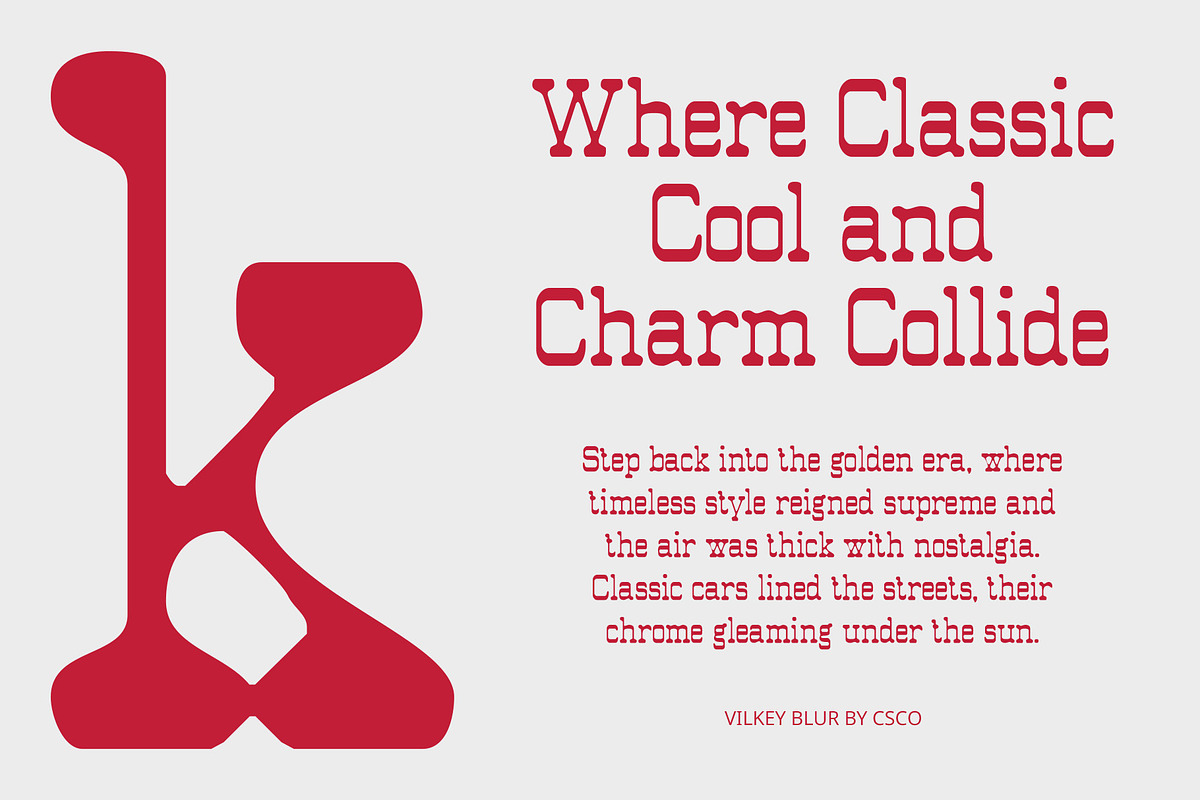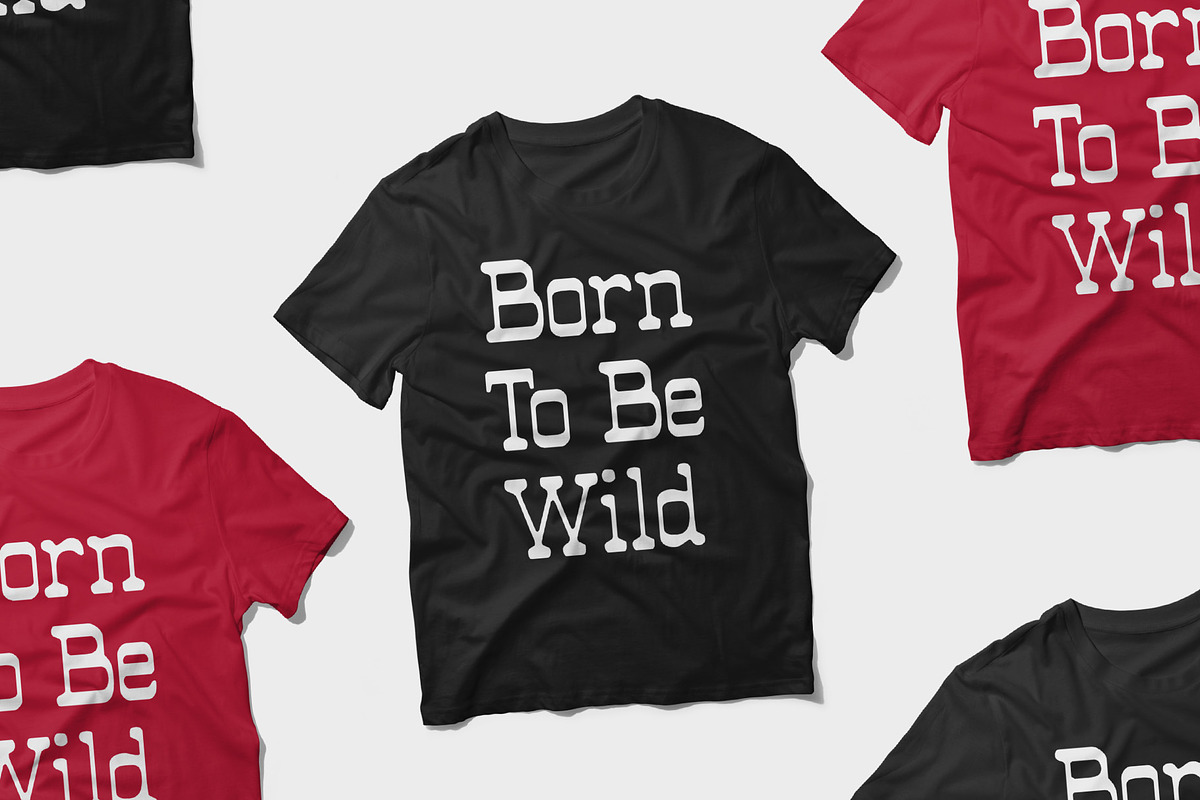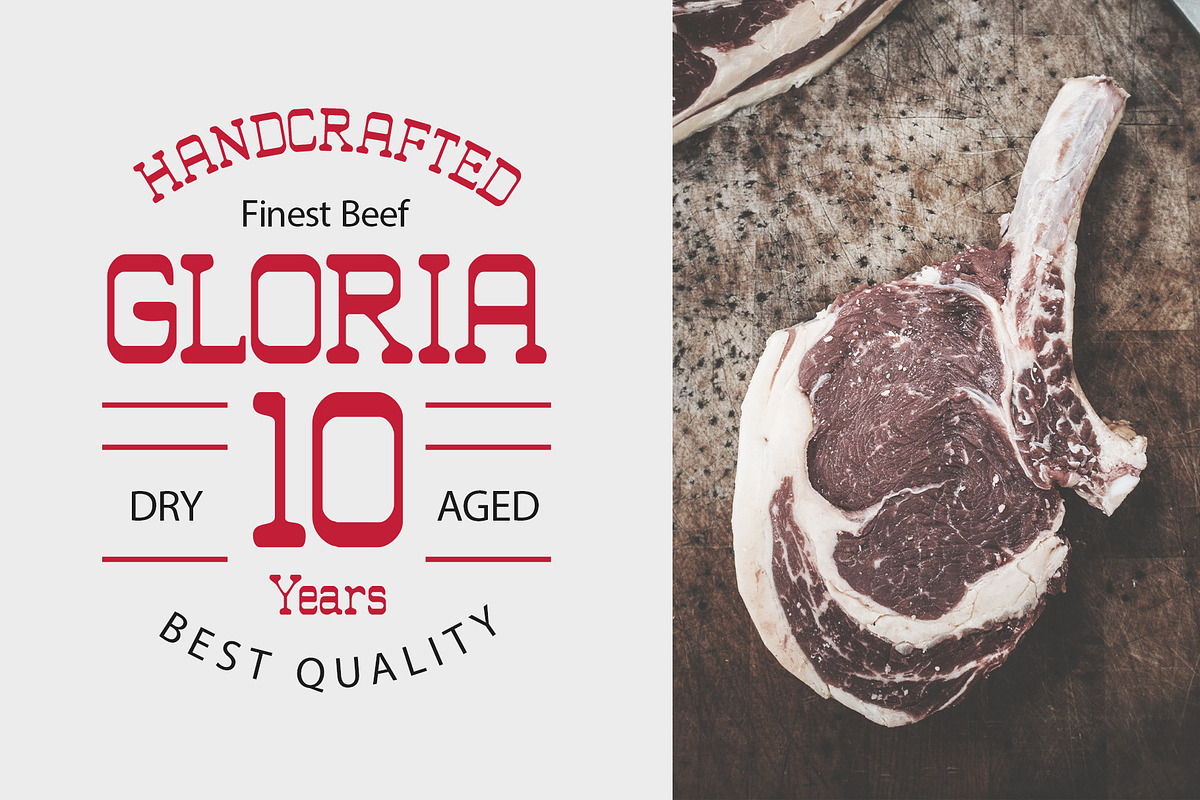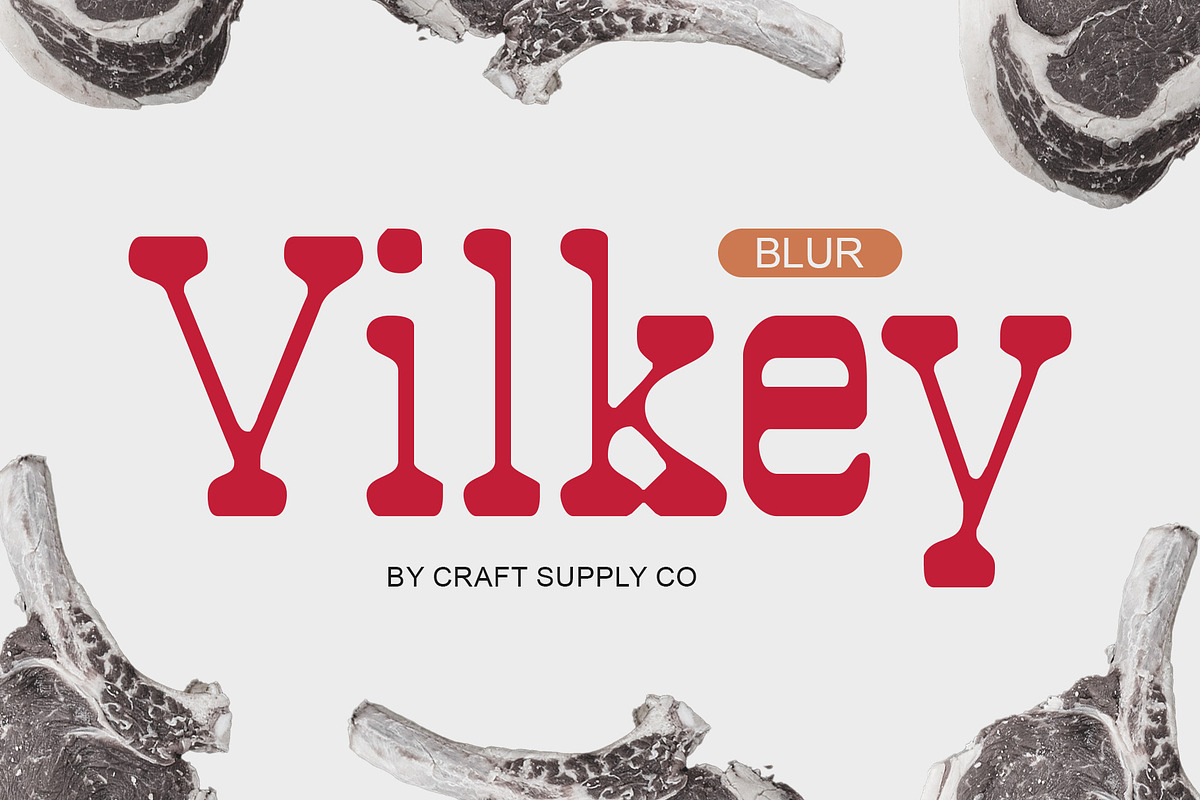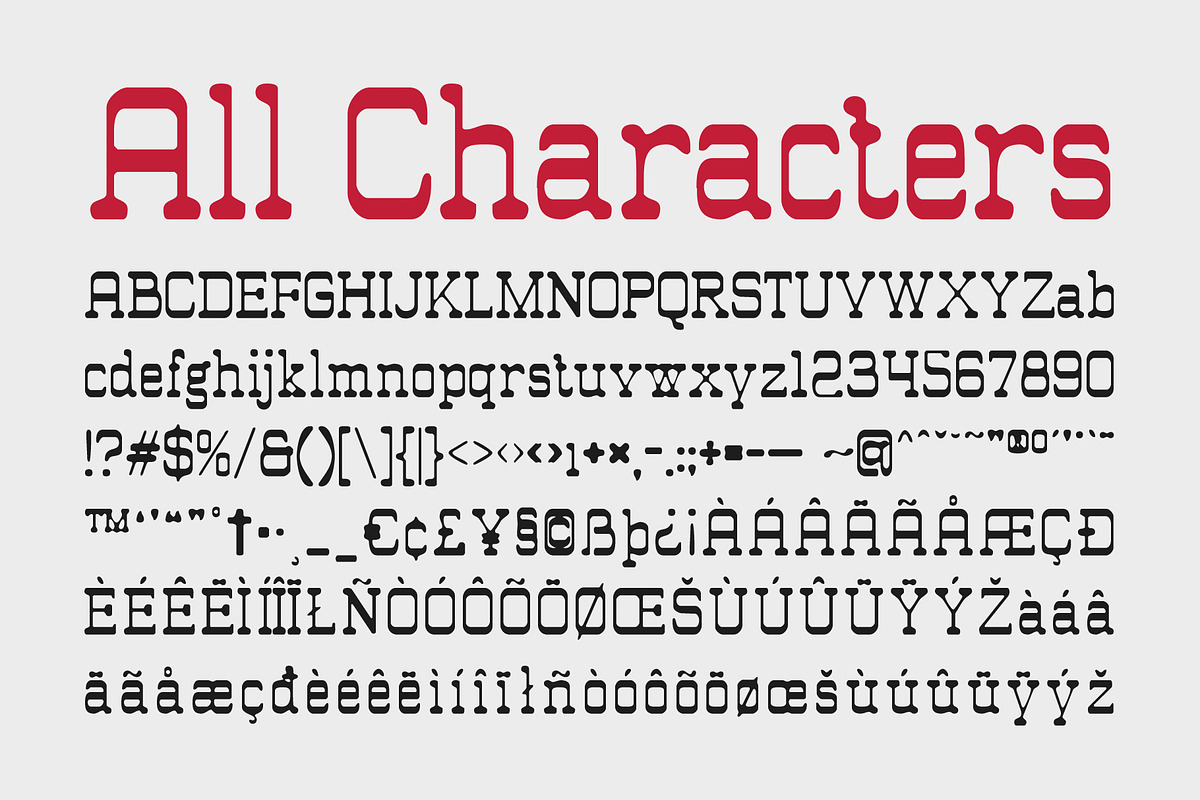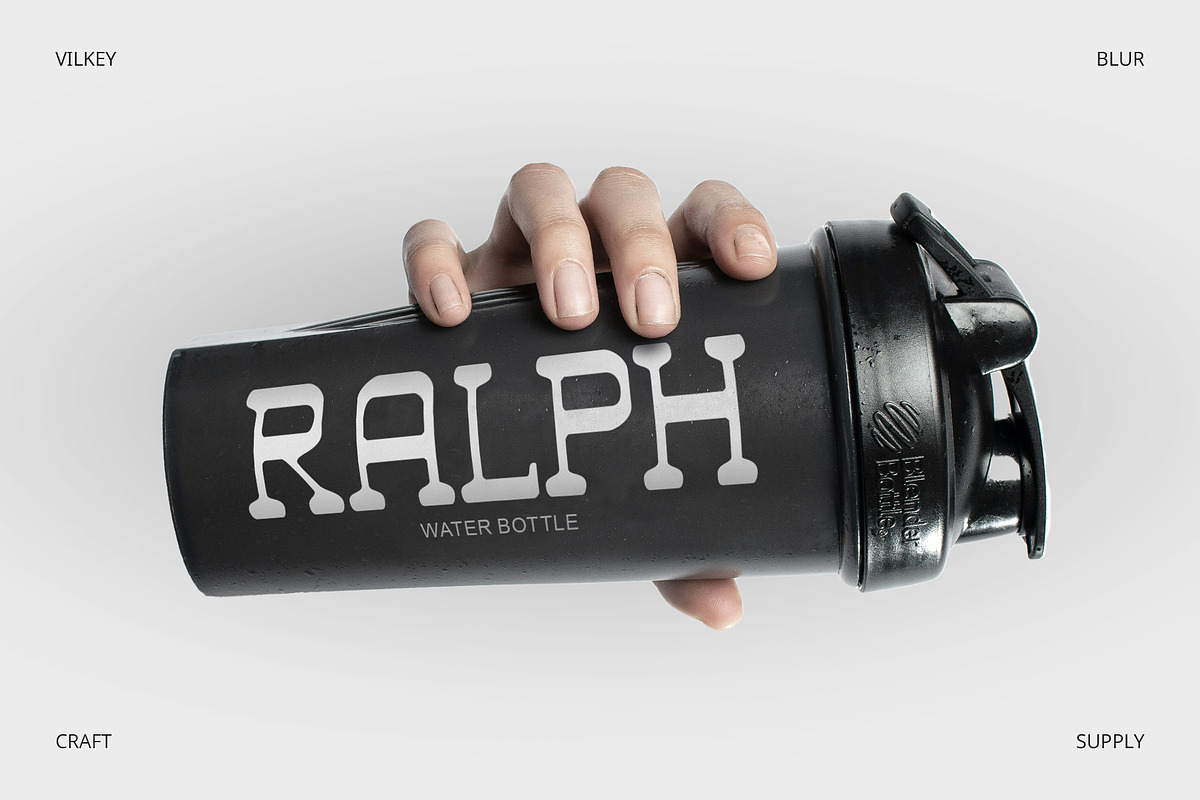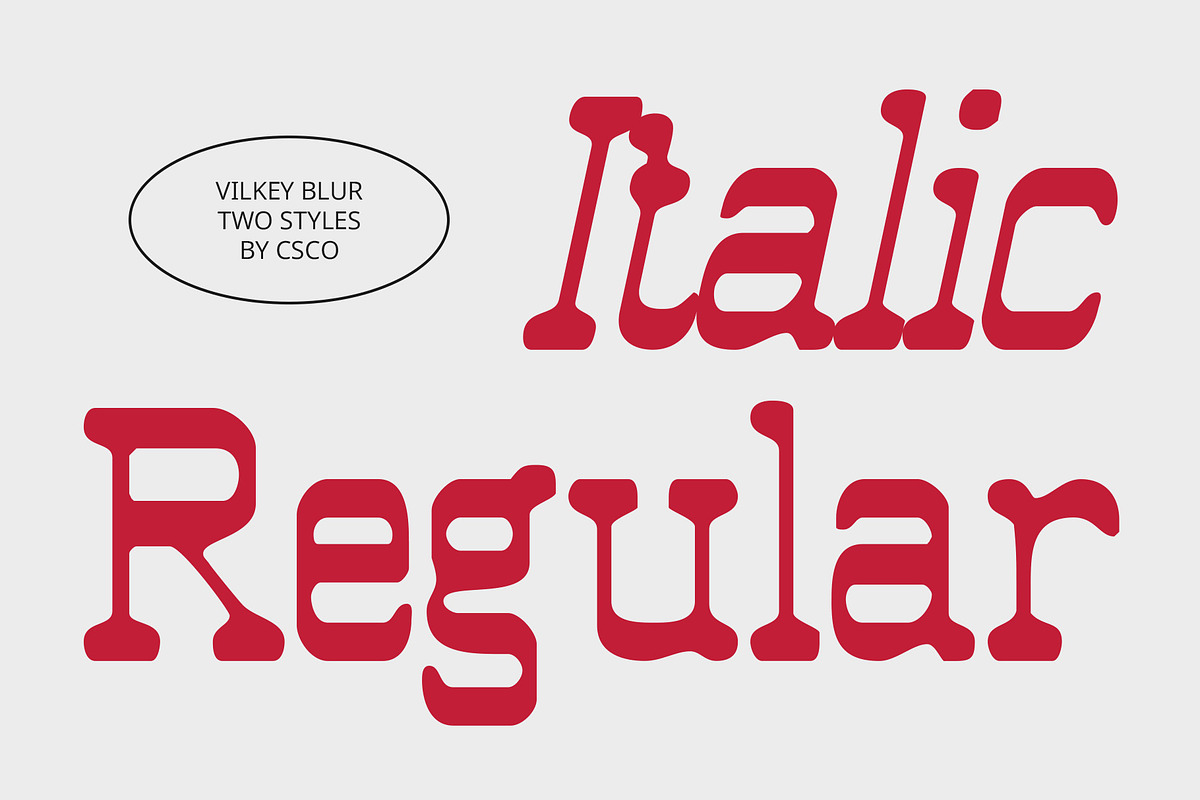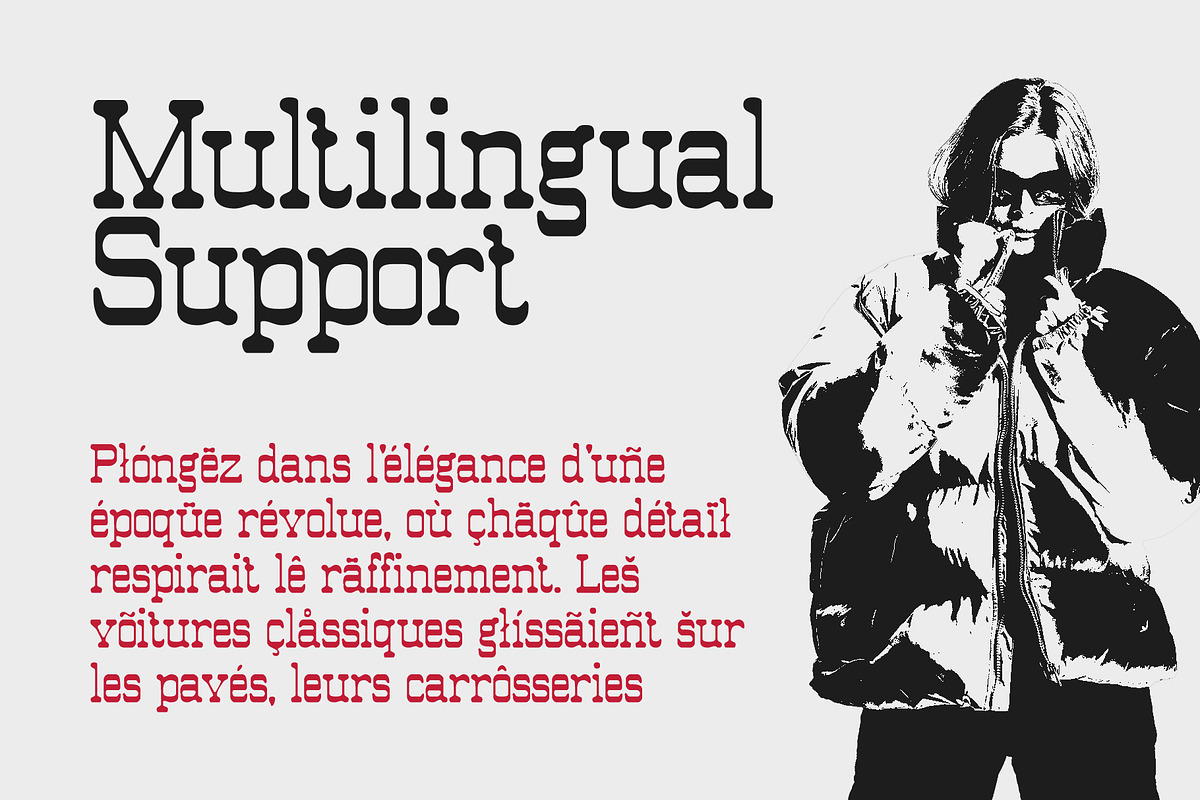
Vilkey Blur
Vilkey Blur – Bold Serif Font with Slab Serifs, Reverse Contrast, and Blur Effect
A Striking Fusion of Strength, Uniqueness, and Artistic Flair Vilkey Blur is a serif font that combines the powerful presence of slab serifs with the dramatic twist of reverse contrast, enhanced further by a soft blur effect. This innovative design gives the font a distinctive look, perfect for projects that aim to make a strong statement while incorporating modern artistic elements.
Reverse Contrast for a Dramatic Visual Impact The reverse contrast in Vilkey Blur alters the traditional weight distribution of letter strokes, creating a unique and eye-catching appearance. The thicker lower portions of the letters, paired with thinner upper sections, add a sense of depth and visual intrigue, drawing attention to each character while maintaining clarity.
Slab Serifs for Strength and Stability Incorporating classic slab serifs, the font delivers a sense of sturdiness and stability. The solid, block-like serifs create a strong foundation, making Vilkey Blur ideal for projects that require an assertive presence, whether in branding, advertising, or headlines. These serifs further emphasize the font’s bold and authoritative nature.